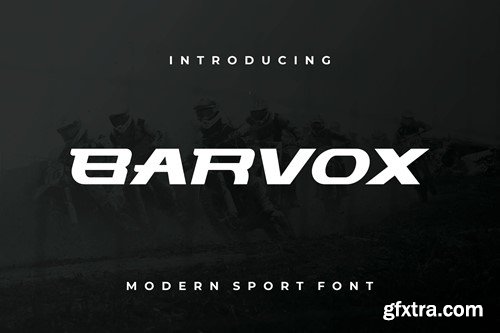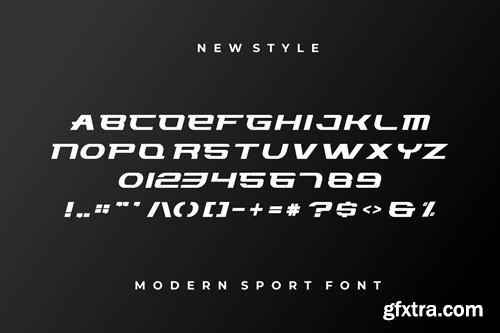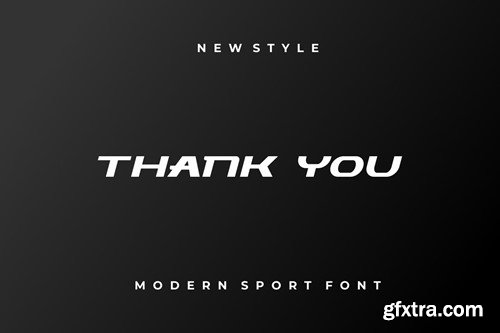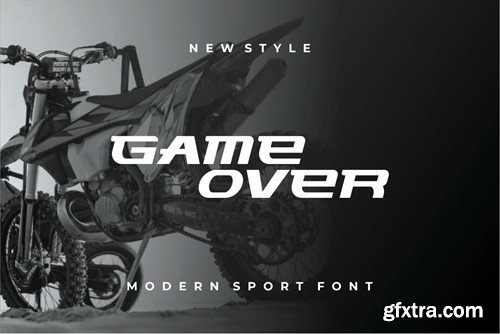
Barvox Font
Introducing our new product Barvox Font - Modern Font is a bold and authentic display font. The font is suitable for any branding project like logo, esport, and many more. outstanding in a wide range of contexts. availlable